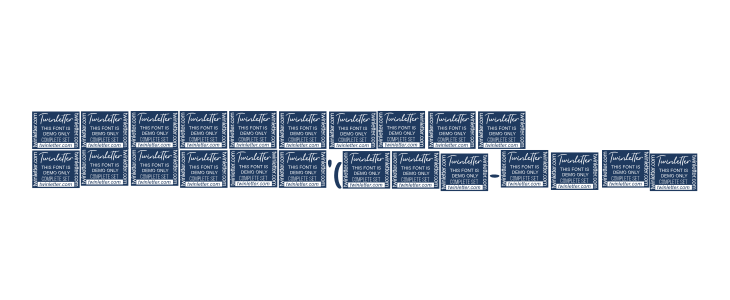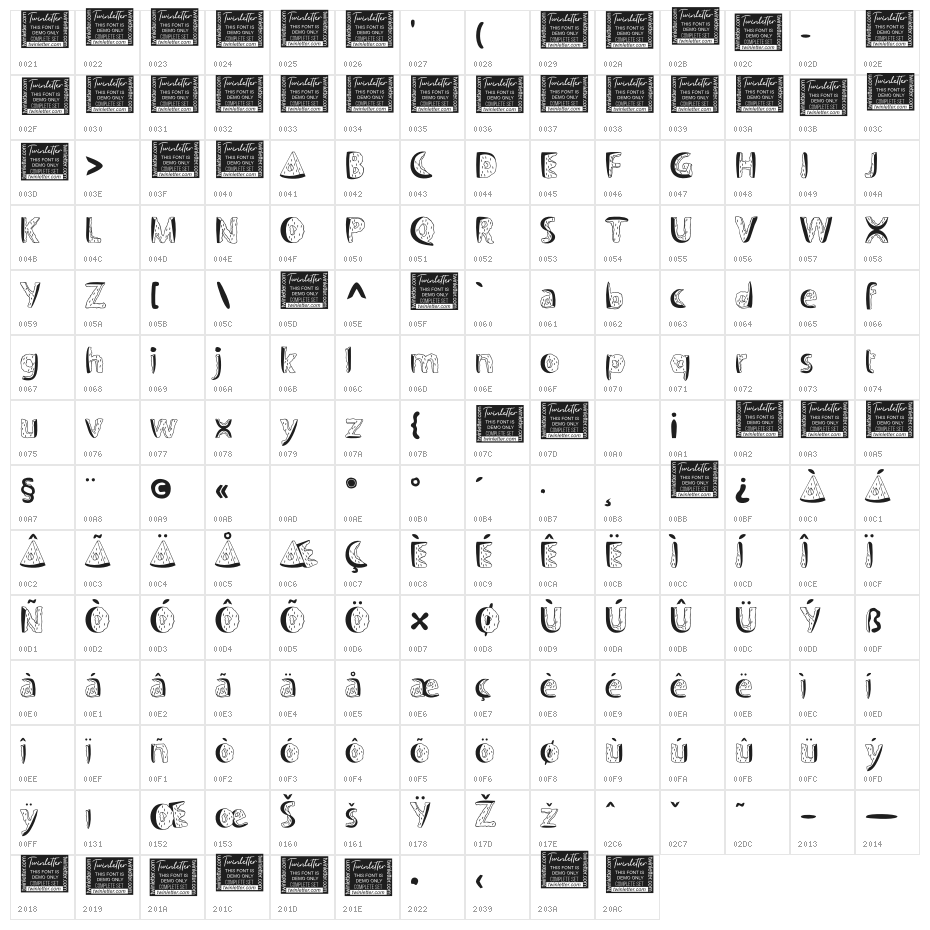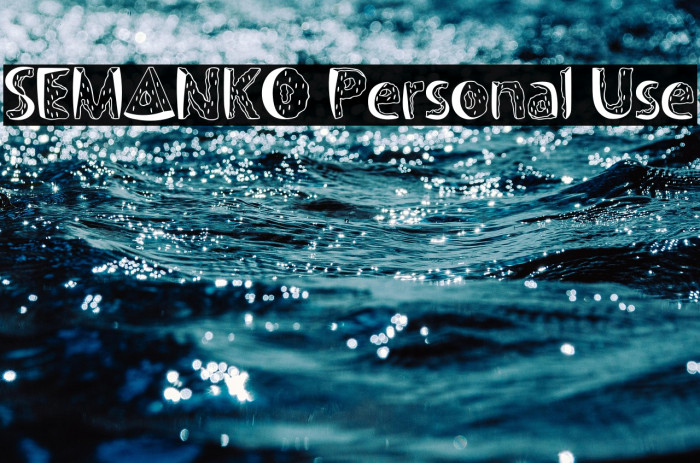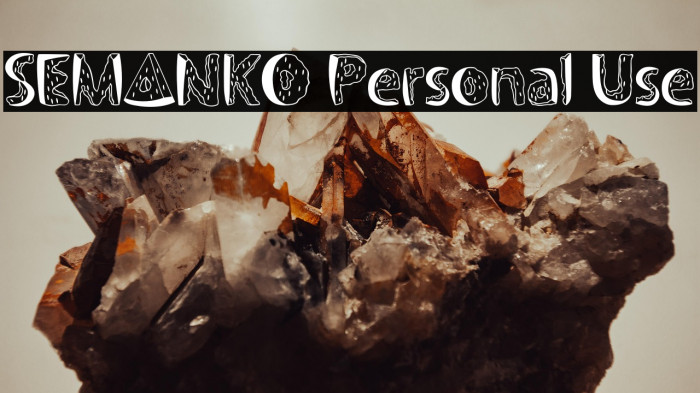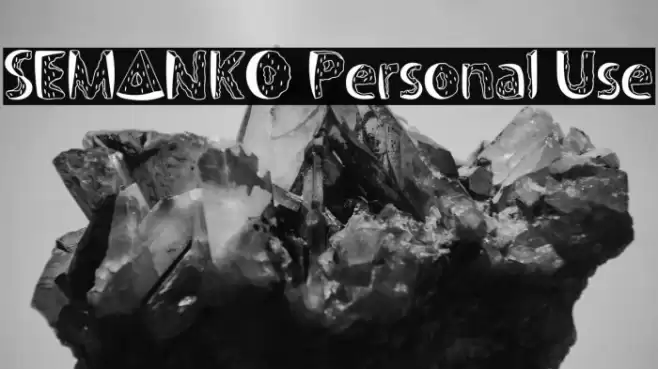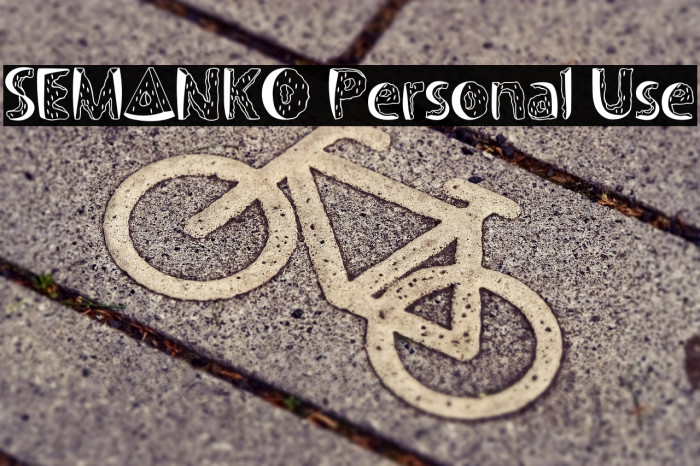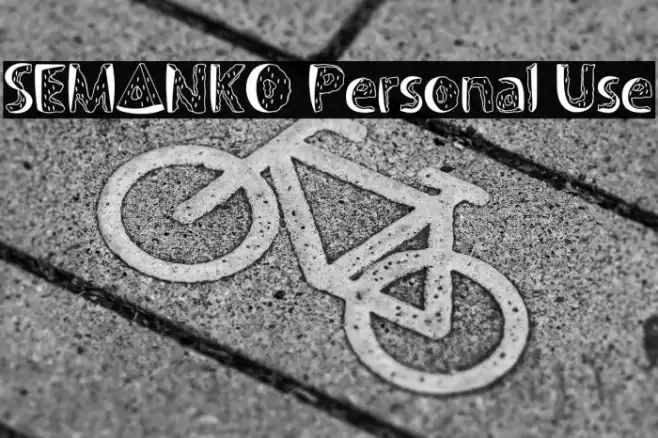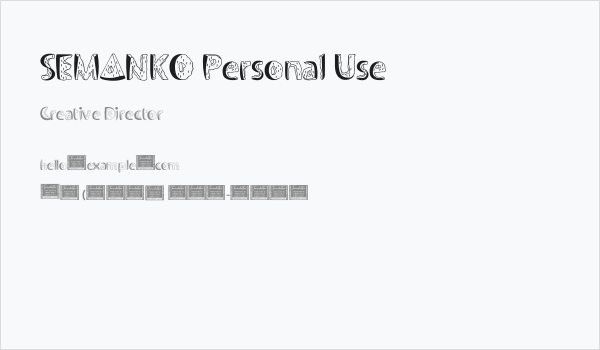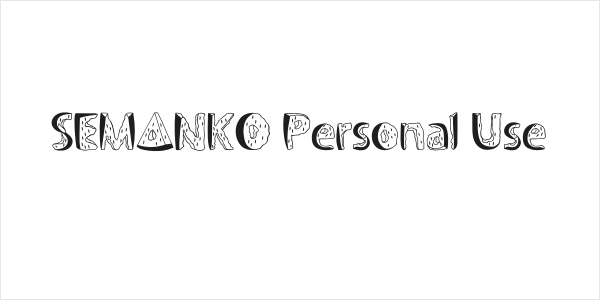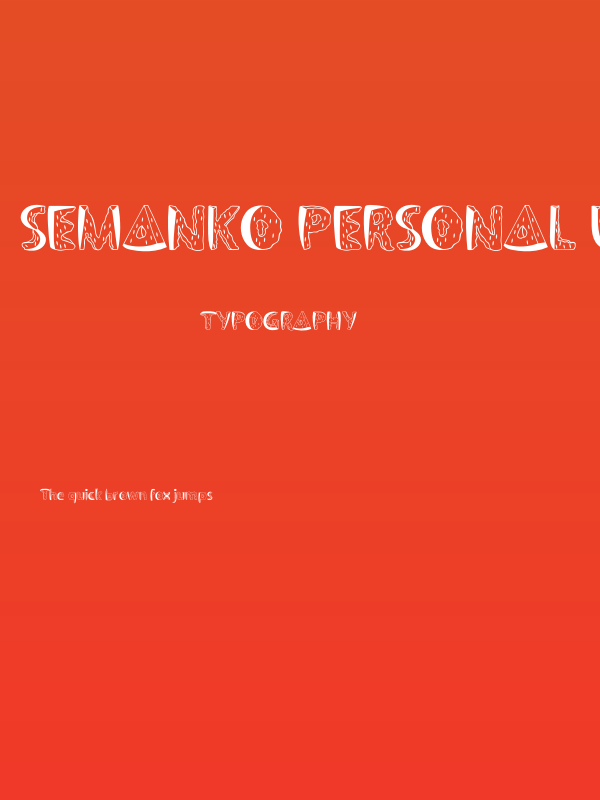
SEMANKO Personal Use Font
SEMANKO Personal Use Description
This font features a playful and artistic design with a hand-drawn appearance. Each character is uniquely crafted with irregular edges and varying stroke thickness, giving it a textured and organic feel. The uppercase and lowercase letters maintain a consistent style, while the numbers and special characters complement the overall aesthetic. The font's quirky and whimsical nature makes it stand out, adding a creative touch to any project.
| Overall Style | Whimsical and Artistic |
| Use Case | Logos, Posters, Creative Projects |
| Proposed Projects | Ideal for children's books, creative posters, artistic branding, and playful invitations. |